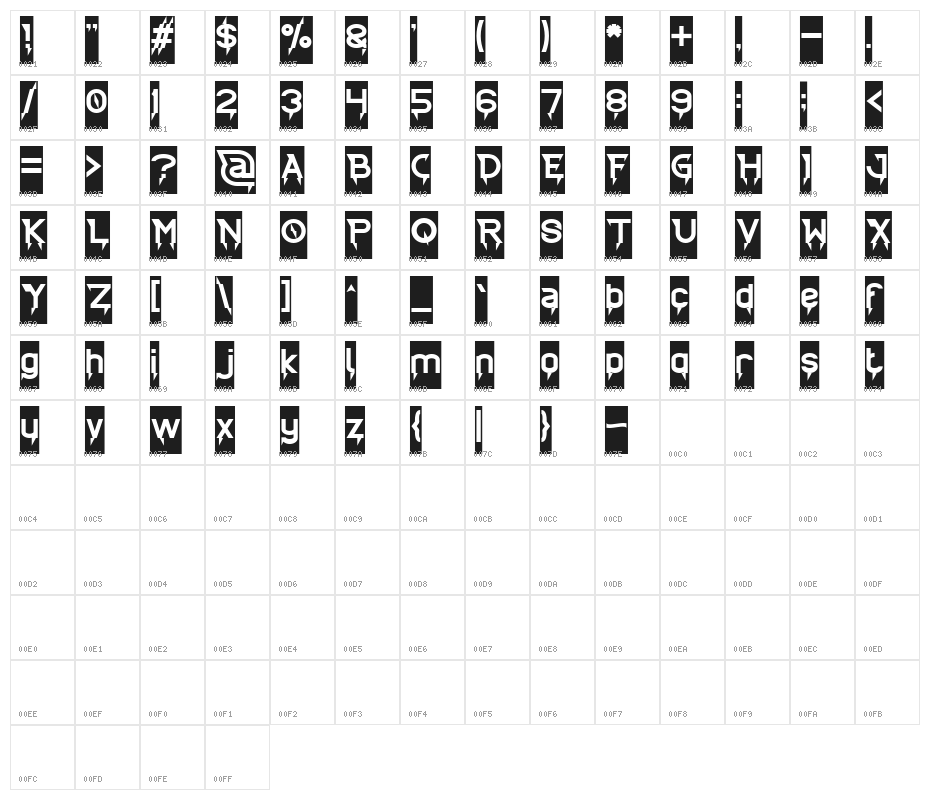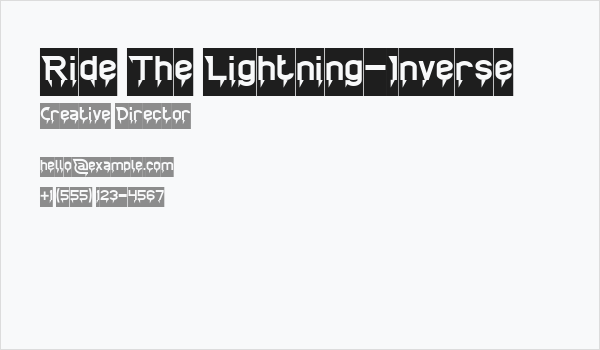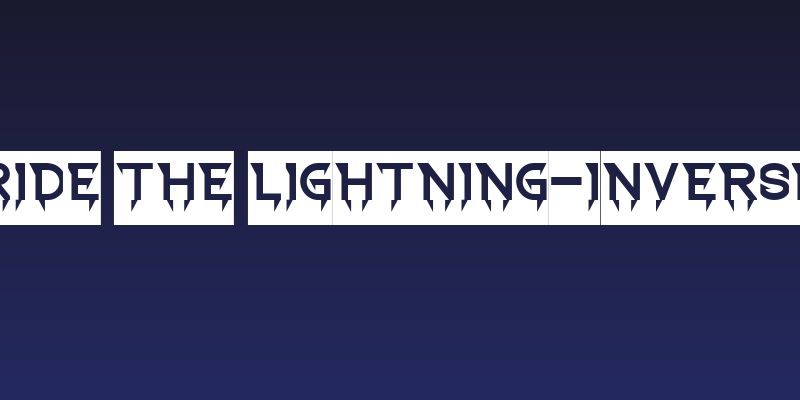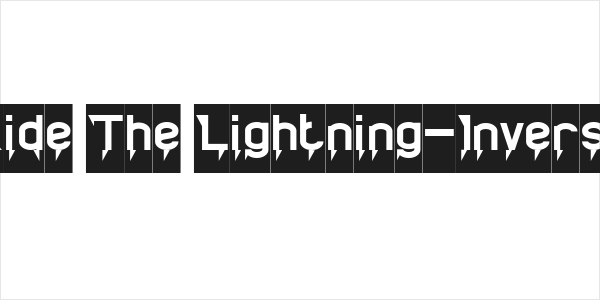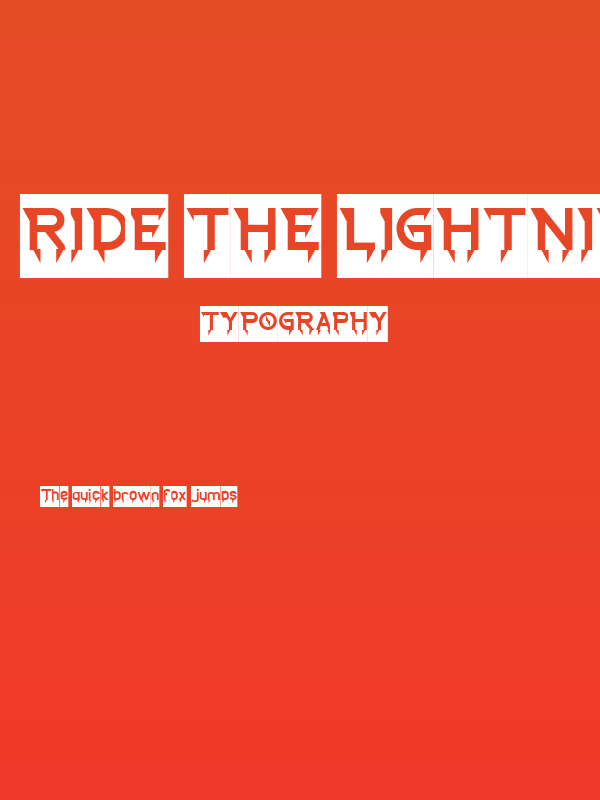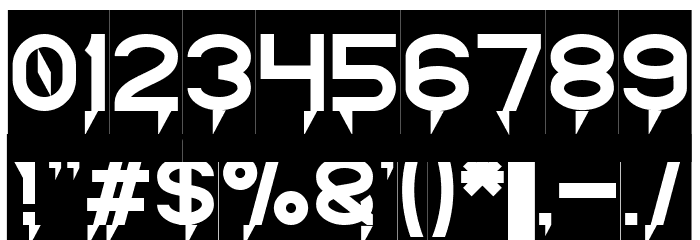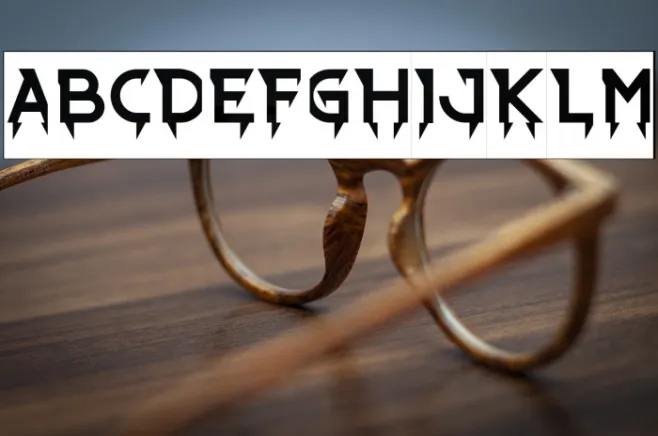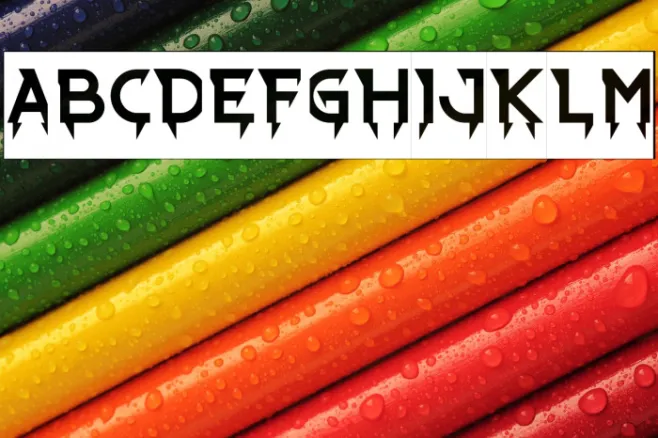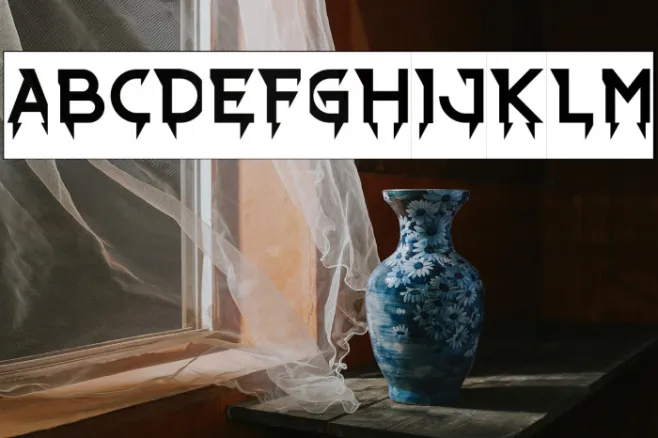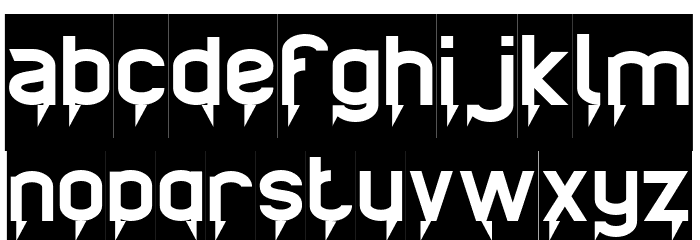
Ride The Lightning-Inverse Font
Ride The Lightning-Inverse Description
This font features a bold, angular design with sharp, lightning bolt-like serifs that give it a dynamic and energetic appearance. The uppercase letters are particularly striking, with each character exhibiting a unique, jagged edge that enhances its visual impact. The lowercase letters maintain a consistent style, offering a slightly softer yet still edgy look. Numbers and special characters are crafted with the same attention to detail, ensuring a cohesive aesthetic throughout. The overall design is reminiscent of heavy metal or rock band logos, making it ideal for projects that require a bold and rebellious touch.
| Proposed Projects | Ideal for music album covers, band logos, event posters, or any project needing a bold, rebellious aesthetic. |